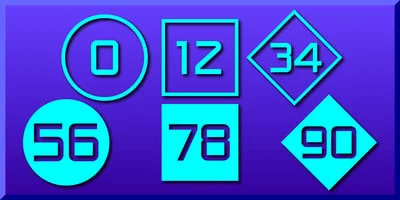
Numbers Style One Font
Numbers Style One Font is perfect for financial institutions, data visualization, statistical reports, accounting firms, mathematical publications, scientific documentation, and numerical display applications. This precise typeface brings clarity and professional accuracy to number-focused design projects.
Numbers Style One Font is exciting because it delivers exceptional numerical clarity with its precisely designed number forms that ensure optimal readability and professional presentation while maintaining consistent spacing and mathematical accuracy across data-intensive applications.
The Numbers Style One Font family includes multiple numerical styling options and mathematical symbols optimized for financial and scientific use. This precise collection provides designers with accurate options for creating memorable and mathematically reliable brand experiences.
Numbers Style One Font offers designers access to a mathematically crafted typeface specifically engineered for optimal numerical display and data presentation excellence. This precise font features expertly designed number forms with consistent spacing and proportions that ensure exceptional clarity in financial documents and statistical presentations. The typeface showcases mathematical precision and professional aesthetics that enhance numerical communications while maintaining functional reliability and broad accessibility. Its numerical character makes it particularly suitable for financial organizations and data-focused companies that require typography capable of conveying mathematical accuracy, statistical precision, and professional reliability. Numbers Style One Font delivers exceptional numerical impact for applications where decorative fonts feel inappropriate for serious data communications and financial branding. The font's precise appeal and mathematical aesthetic make it an essential tool for designers working on projects that require typographic expression of numerical accuracy, mathematical precision, and statistical clarity that resonates with audiences seeking authentic professional experiences and reliable visual communication.